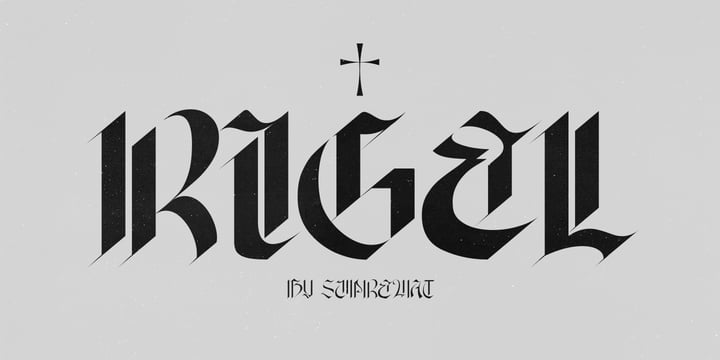
Blackletter fonts have letters that are very bold and ornate.
Download Free Rockwell Extra Bold Font Free Rockeb Ttf Regular Font For Windows. You can find more information about this below. Blackletter family consisting of 3 fonts. Download blackletter extra bold font with extra bold style. 1 2 3 4 5. Native font + instapress photoshop action. The blackletter extrabold font contains 247 beautifully designed characters. Blackletter extrabold font available in ttf format for you to download. ✔️ customize your own preview on ffonts.net to make sure it`s the right one for your designs. Fontpalace.com offers largest database of free fonts. Download free fonts for mac, windows and linux. You can find over 307 other extra bold fonts on fontsup. All fonts are in truetype format. 2 styles uncategorized 4 downloads. This font is in the extra bold style. Blackletter extrabold font characters are listed below.
Ricardo Alt Extra Bold Font What Font Is. ✔️ customize your own preview on ffonts.net to make sure it`s the right one for your designs. 1 2 3 4 5. Fontpalace.com offers largest database of free fonts. Download free fonts for mac, windows and linux. You can find more information about this below. 2 styles uncategorized 4 downloads. Native font + instapress photoshop action. This font is in the extra bold style. You can find over 307 other extra bold fonts on fontsup. Blackletter extrabold font characters are listed below. Blackletter family consisting of 3 fonts. The blackletter extrabold font contains 247 beautifully designed characters. Download blackletter extra bold font with extra bold style. Blackletter extrabold font available in ttf format for you to download. All fonts are in truetype format.
1 matches not a font i'm afraid. The best selection of blackletter fonts for windows and macintosh. Demo donationware free free for personal use public domain, gpl, ofl shareware. Sunrise till sunset by comicraft fonts @layer3fonts #bold #comic #black #fat #extra #bold #round #corner #display #title #blackletter #gothic #sharp. ✔️ customize your own preview on ffonts.net to make sure it`s the right one for your designs. This font is available in truetype or opentype format. Download free fonts for mac, windows and linux. Free and premium font downloads. It is a western calligraphy style that was used in europe from 1100s to the 1600s. Custom logo, what else would you expect?